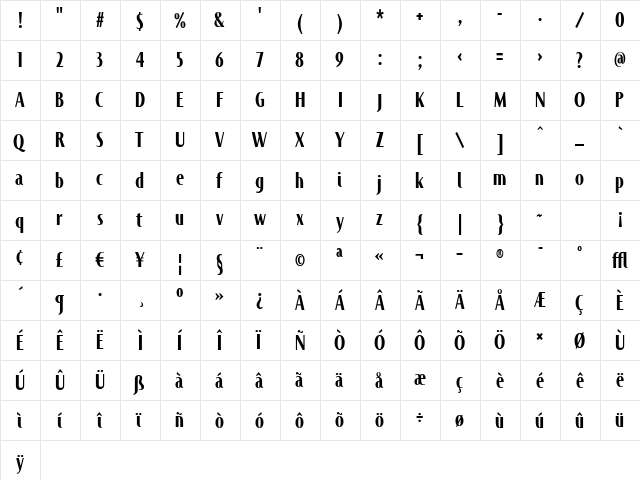
Jandoni Regular
Design Context for Jandoni Typeface
Jandoni offers clean, dependable letterforms without strong stylistic allegiance, making it a practical choice for designers who need flexibility.
Pro Tip: Use Jandoni in both headline and body roles to test its range before committing to a single application.